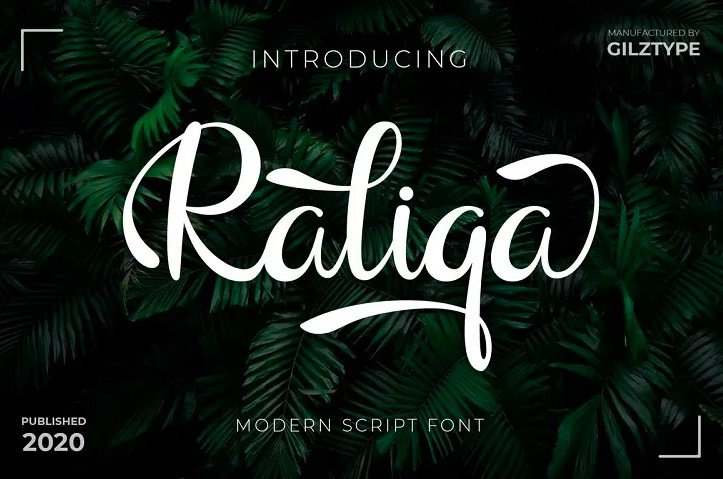
Raliqa Modern Calligraphy Font
This font provide high qualities characters and having lots of features that will make your project super smart and cute as compare to others.
About Raliqa Modern Calligraphy Font
Introducing the stunning and bold Raliqa Font, a calligraphic typeface that pairs seamlessly with the Noelan script font. This modern, fancy, and retro typeface allows you to easily craft eye-catching and user-attractive graphic illustrations.
This font provide high qualities characters and having lots of features that will make your project super smart and cute as compare to others.